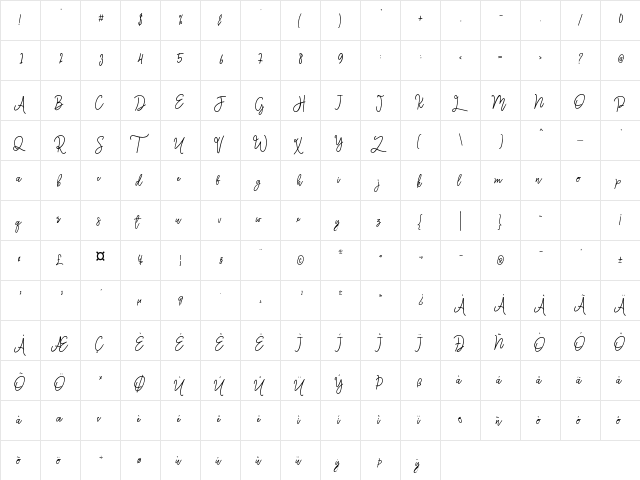
Monalisa Monoline Script Regular
Design Context for Monalisa Monoline Script Typeface
Monalisa Monoline Script brings a calligraphic fluidity to the page — its connecting strokes and expressive curves give it an unmistakably human quality.
Font Pairing: Combine Monalisa Monoline Script with a simple geometric sans for maximum contrast — the tension between flowing curves and clean structure is a classic typographic pairing.
Pro Tip: Use Monalisa Monoline Script for short runs of text — names, titles, or taglines. Extended body copy in script faces tires the eye quickly.